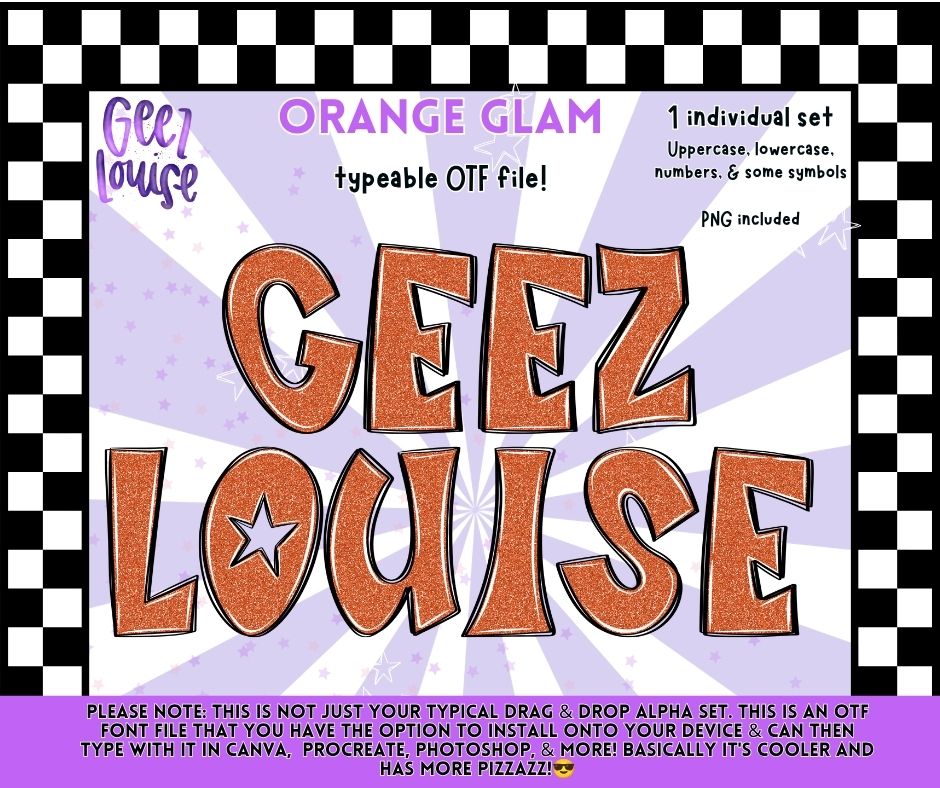
✨ Add a little sparkle to your next project with the Orange Glam alphabet! This individual set includes a typeable OTF font and matching PNG alpha files for endless creative possibilities.